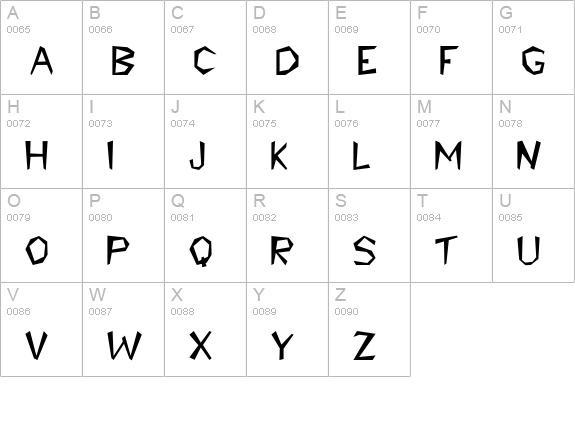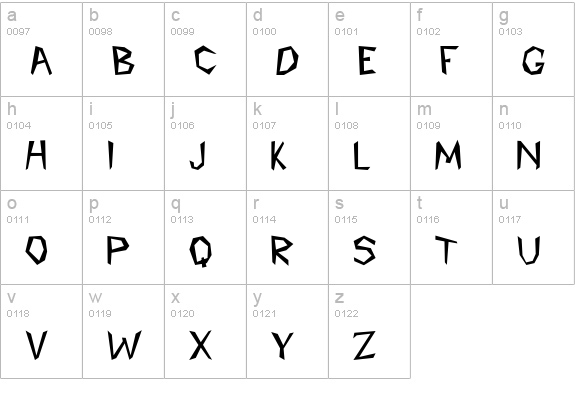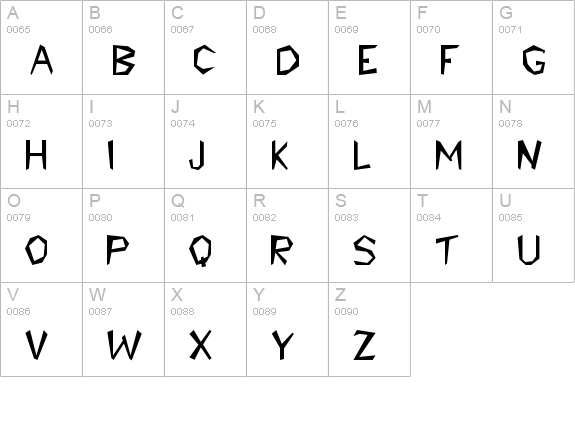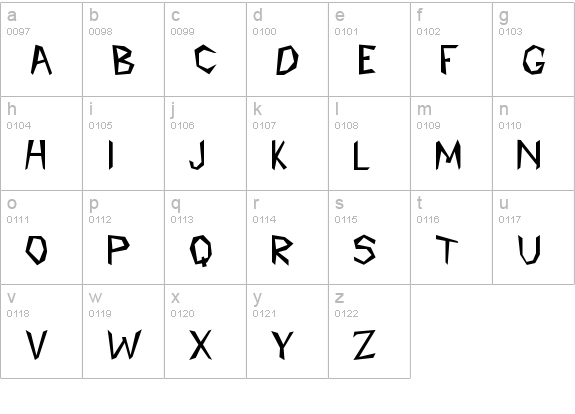
RSCaveman Font Details
Introducing RSCaveman font, a unique and rugged typeface that embodies the raw and primal essence of ancient times. Inspired by cave paintings and prehistoric art, this font exudes a sense of mystery and adventure. With its rough edges and bold strokes, RSCaveman is perfect for creating eye-catching designs that stand out from the crowd. Best of all, RSCaveman font is completely free to use! You can download this striking typeface at FontsMarket.com and unleash your creativity without any cost. Whether you're working on a project that needs a touch of primitive charm or simply want to add a touch of personality to your designs, RSCaveman font is the perfect choice. Download it today and let your imagination run wild!